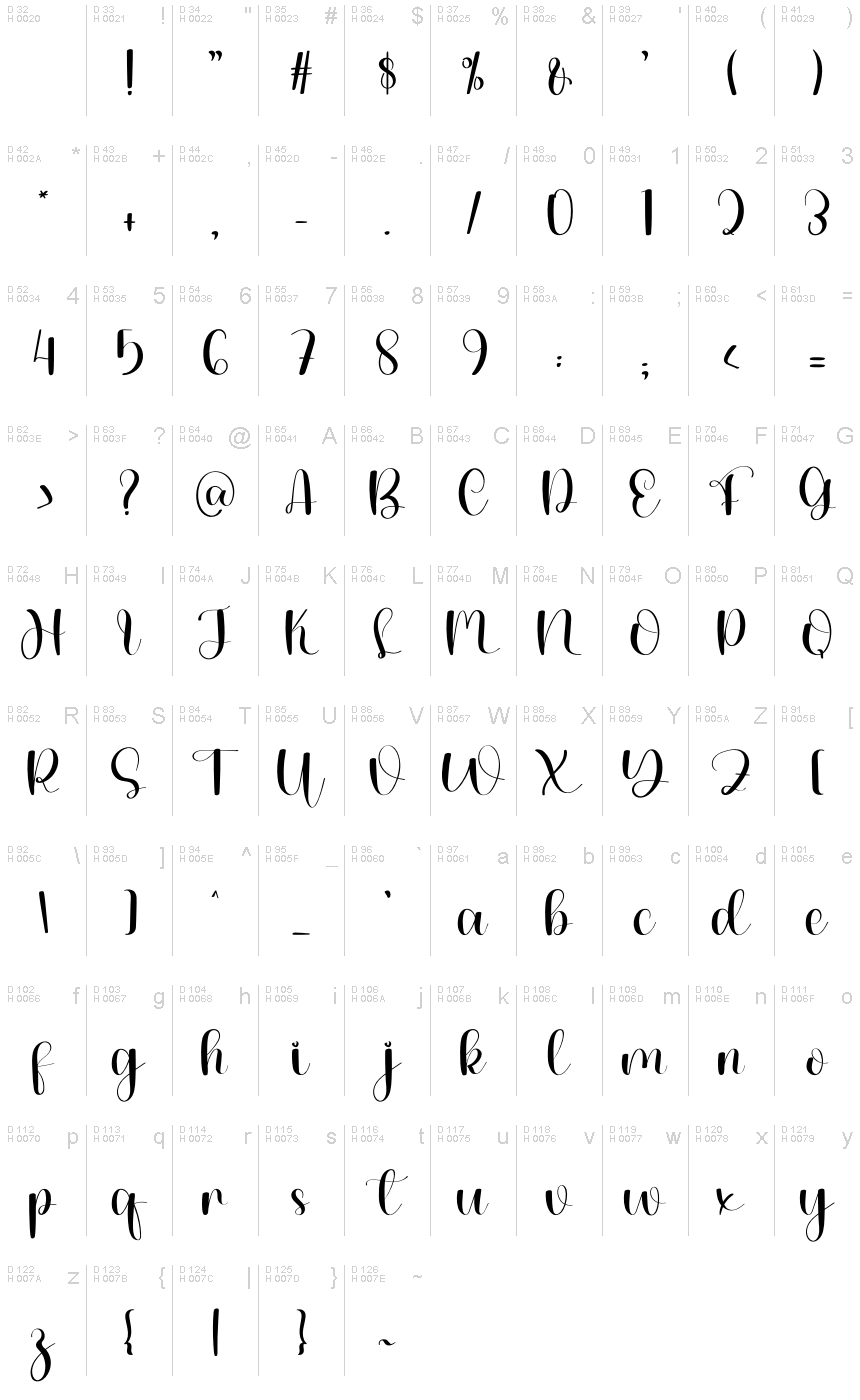
The Duck
The Duck is a captivating calligraphic font designed by PiPi Creative. Its flowing, organic strokes and elegant flourishes evoke a sense of graceful movement, making it a versatile choice for a wide range of design applications.
The font's distinct personality shines through in its whimsical, playful nature, with each letter seemingly dancing across the page. Its stylized, almost script-like appearance lends itself beautifully to branding, titling, and artistic projects, adding a touch of charm and personality to any design.
Leveraging the unique character of "The Duck" can elevate the visual appeal of invitations, greeting cards, packaging, and more, allowing designers to create memorable, visually striking pieces that captivate the audience.